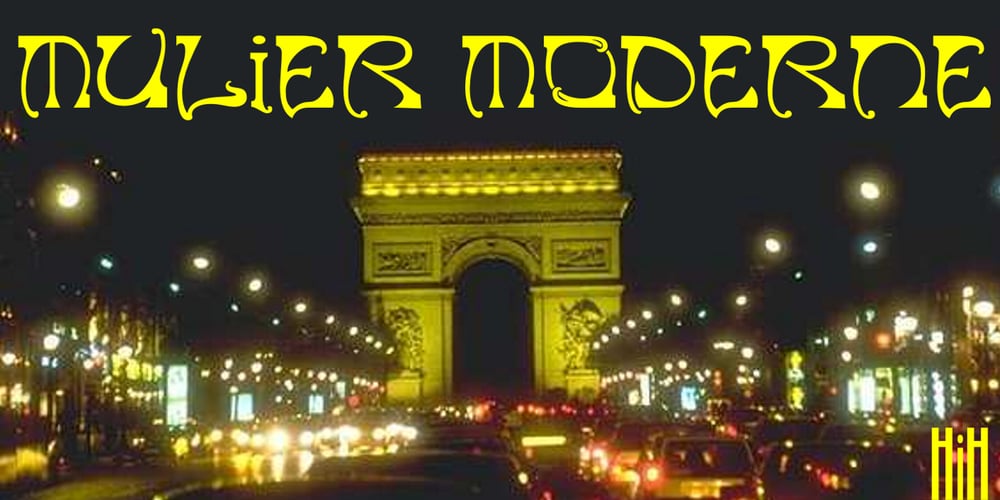
Mulier Moderne Font Family was designed by E. Mulier and published by HiH. Mulier Moderne contains 1 styles and family package options. Even though the phrase Art Nouveau originated in Paris at the shop of Siegfried Bing, the French preferred to call it Le style moderne. This very sinuous, very Art Nouveau typeface was designed by an E. Mulier around 1894, probably also in Paris. The organic, vine-like curve forms are frequently seen in the art of the period. Examples include the architecture of Victor Horta, the furniture of Henry van de Velde and the jewelry of Max Gradl. Mulier Moderne is an all-cap font with a full Western European character set plus ST and TH ligatures, an alternate ‘E’ and two glyphs of period printer’s cuts. Warning: do not use for extended text. Duh!